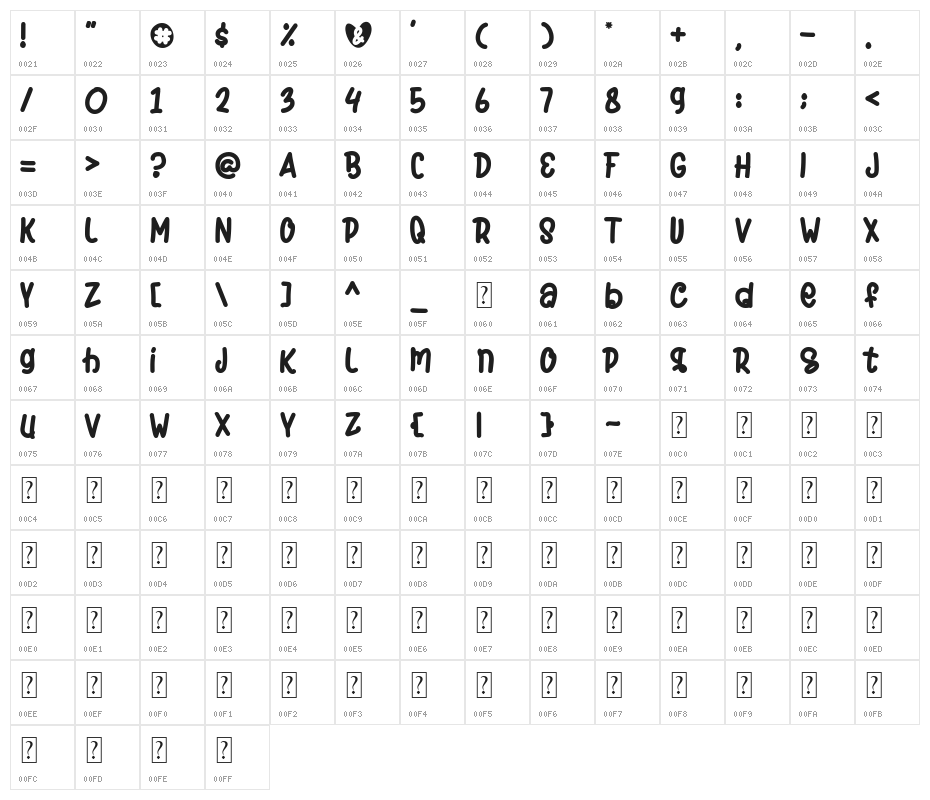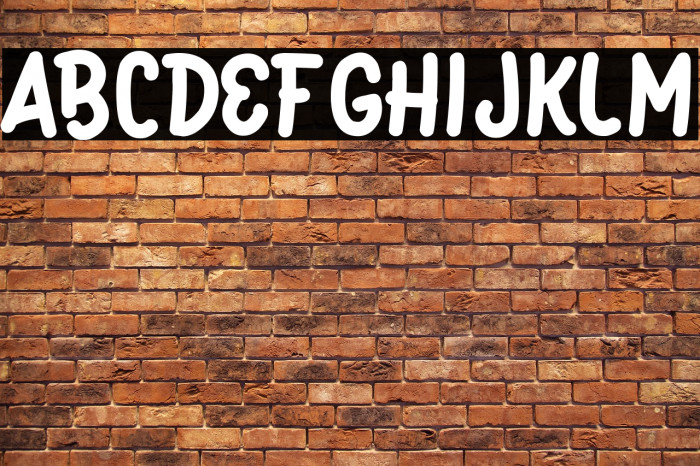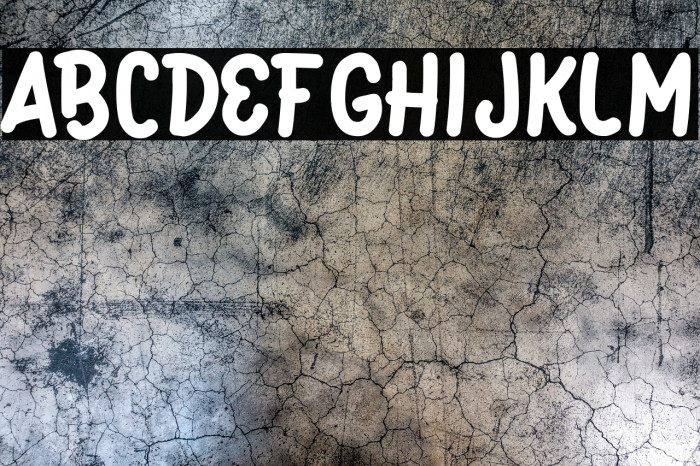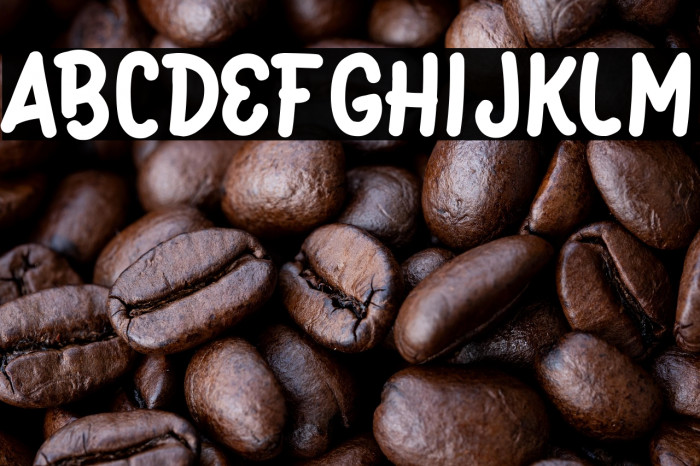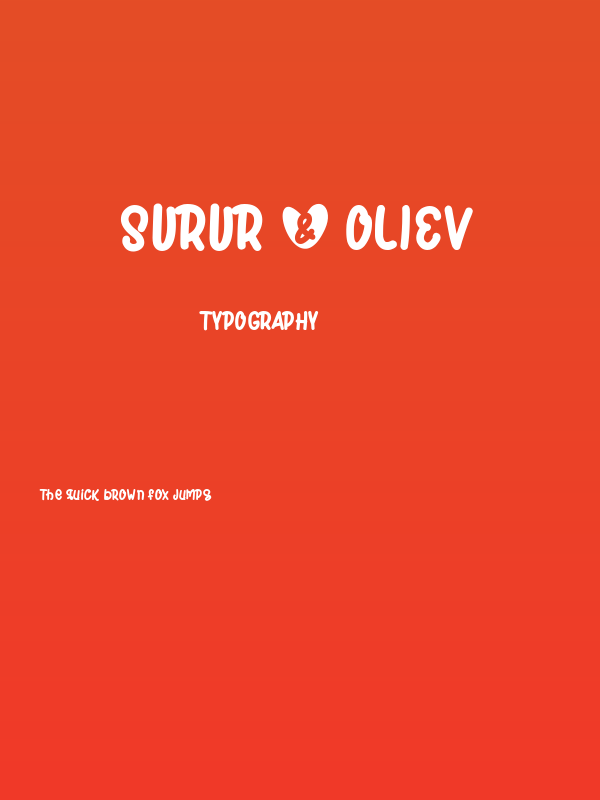
SURUR & OLIEV Font
SURUR & OLIEV Description
This font features a playful and bold style, characterized by its thick, rounded strokes and slightly irregular shapes. The letters have a hand-drawn appearance, giving them a casual and friendly vibe. The uppercase and lowercase letters maintain a consistent weight, contributing to a cohesive look. The numerals and special characters follow the same design principles, ensuring uniformity across all glyphs. The overall aesthetic is lively and energetic, making it suitable for projects that require a fun and approachable feel.
| Proposed Projects | Ideal for children's books, playful branding, event invitations, and social media graphics. |